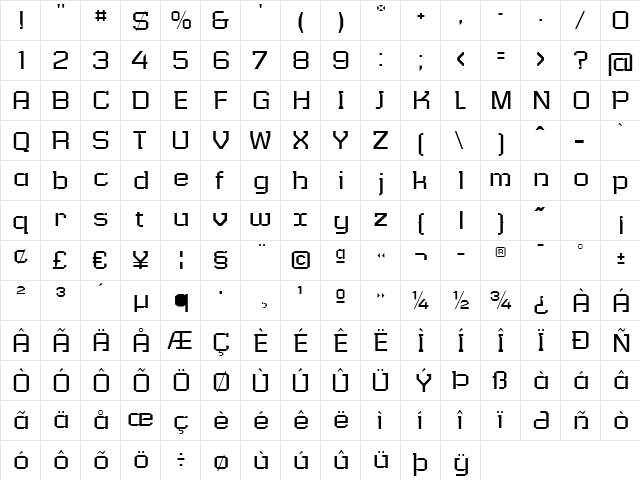
Verso Light
Design Context for Verso Typeface
Verso is a composed and adaptable typeface that performs quietly and consistently across a wide range of design contexts. The delicate stroke weight brings airiness and refinement to layouts.